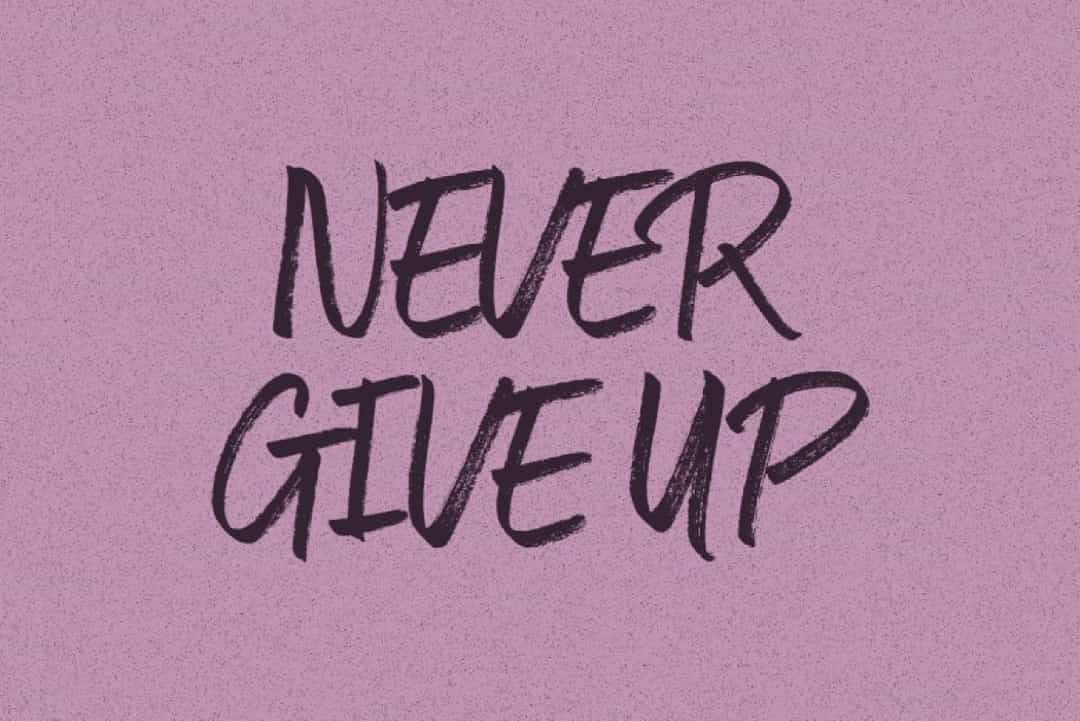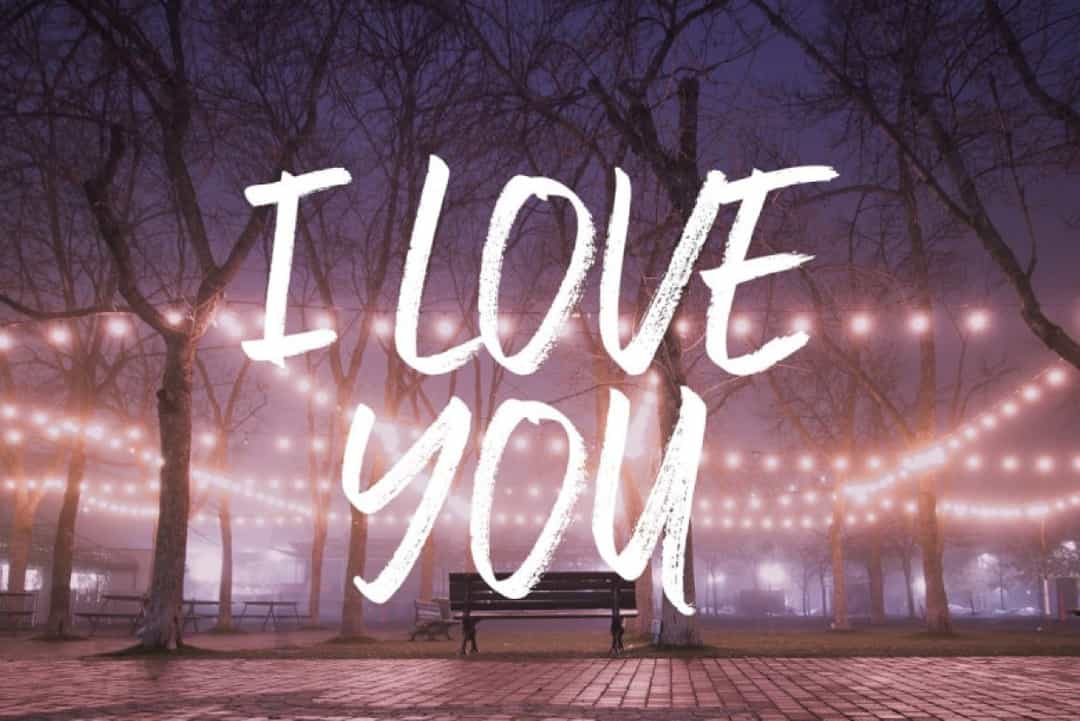
Auttera is an authentic typeface created through hand-drawn sketches made with markers. The natural and organic style gives every design an individualistic and personal look and feel, setting itself apart from other fonts.